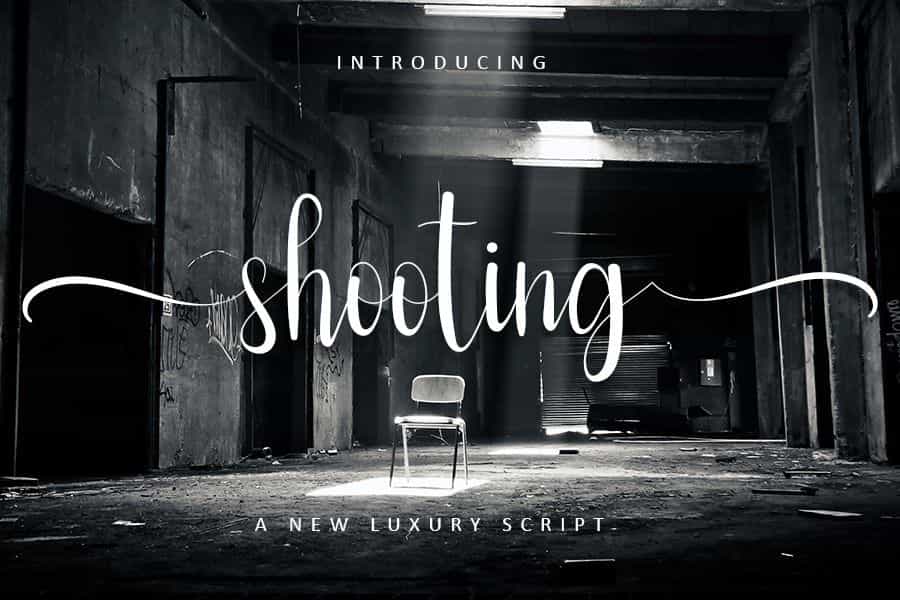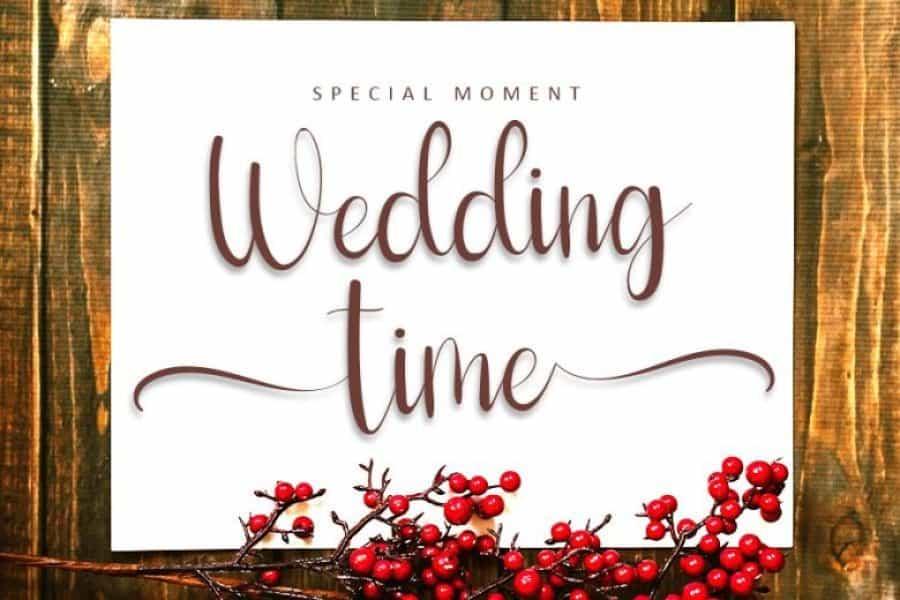
Shooting is an outstanding font for calligraphy font. With its casual yet sophisticated style, this font can be used for various occasions such as wedding invitations, logo headings and T-shirt graphics. PUA encoded font means you have access to all characters and strokes with ease!